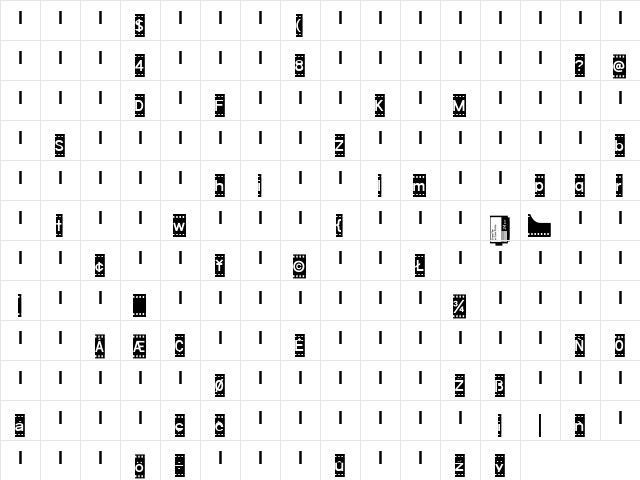
FilmStrip Demo Normal
Design Context for FilmStrip Demo Typeface
FilmStrip Demo is a composed and adaptable typeface that performs quietly and consistently across a wide range of design contexts.